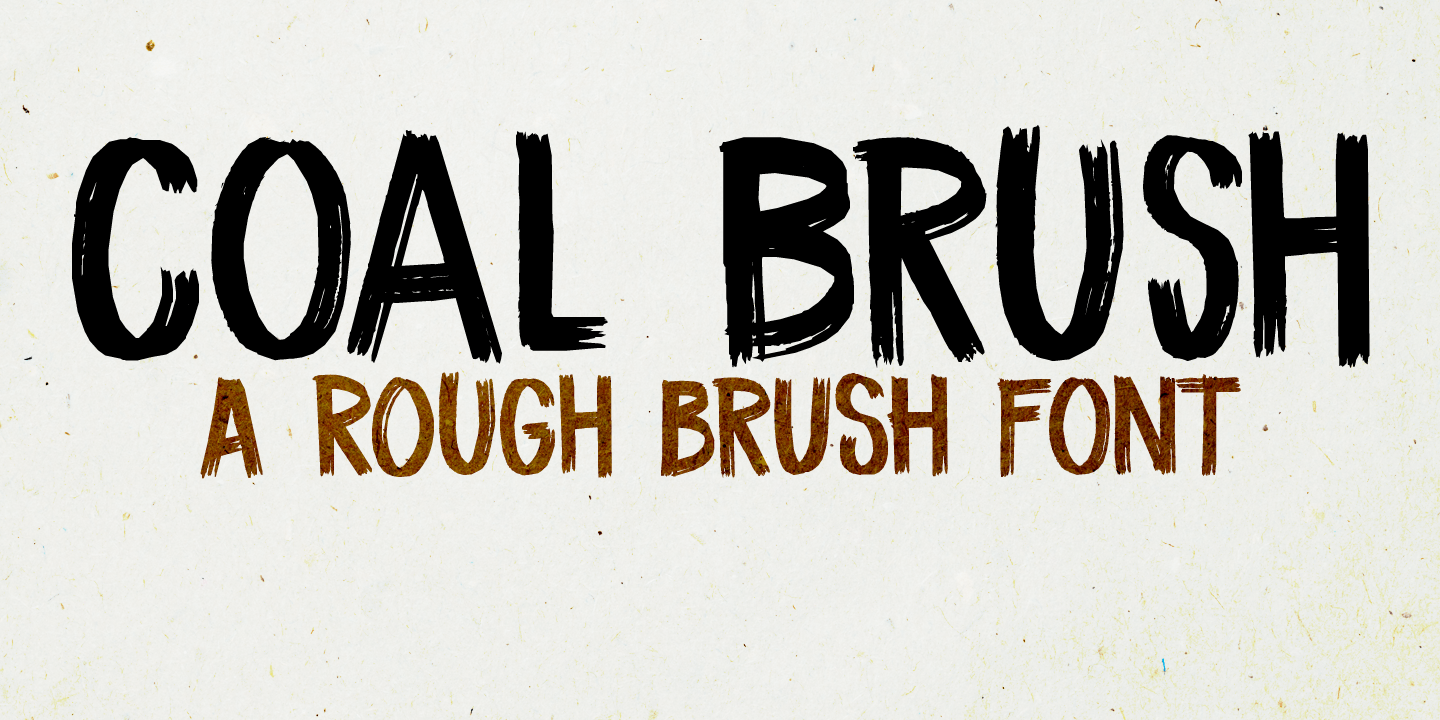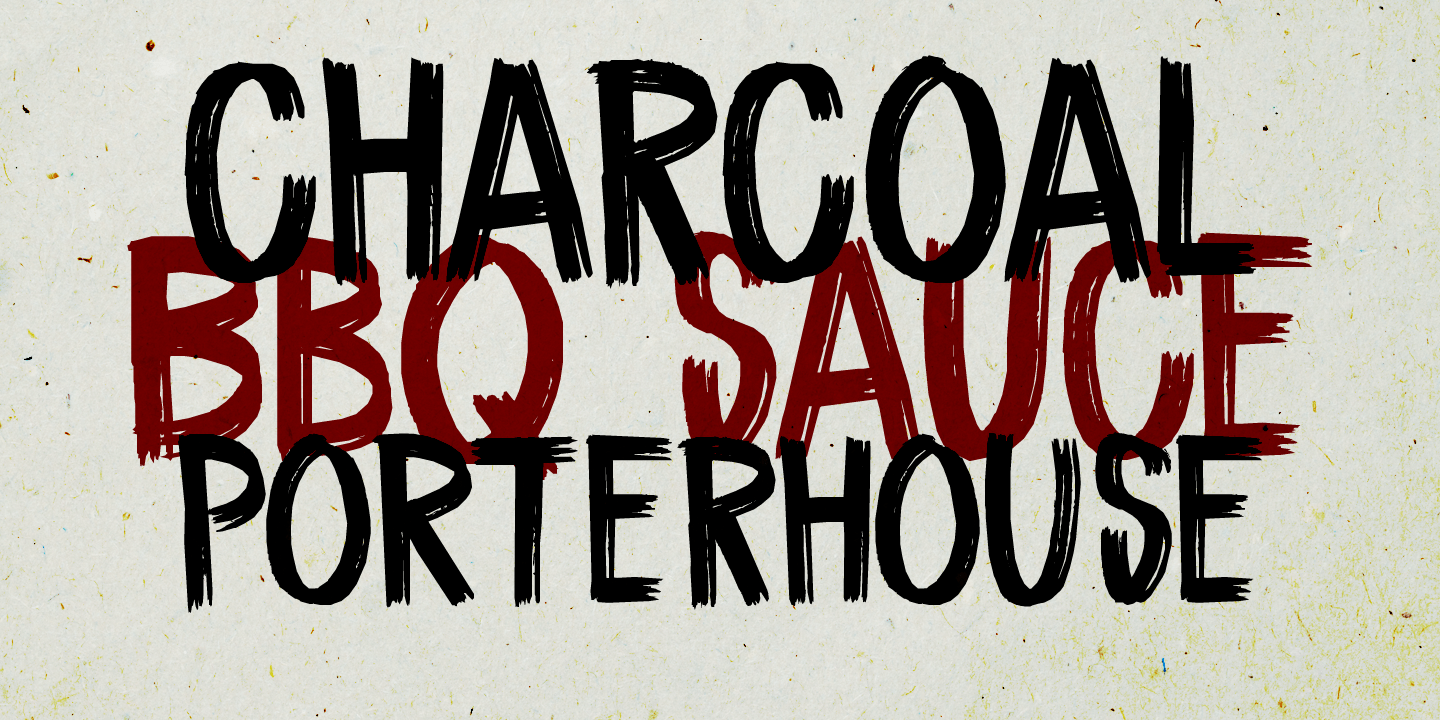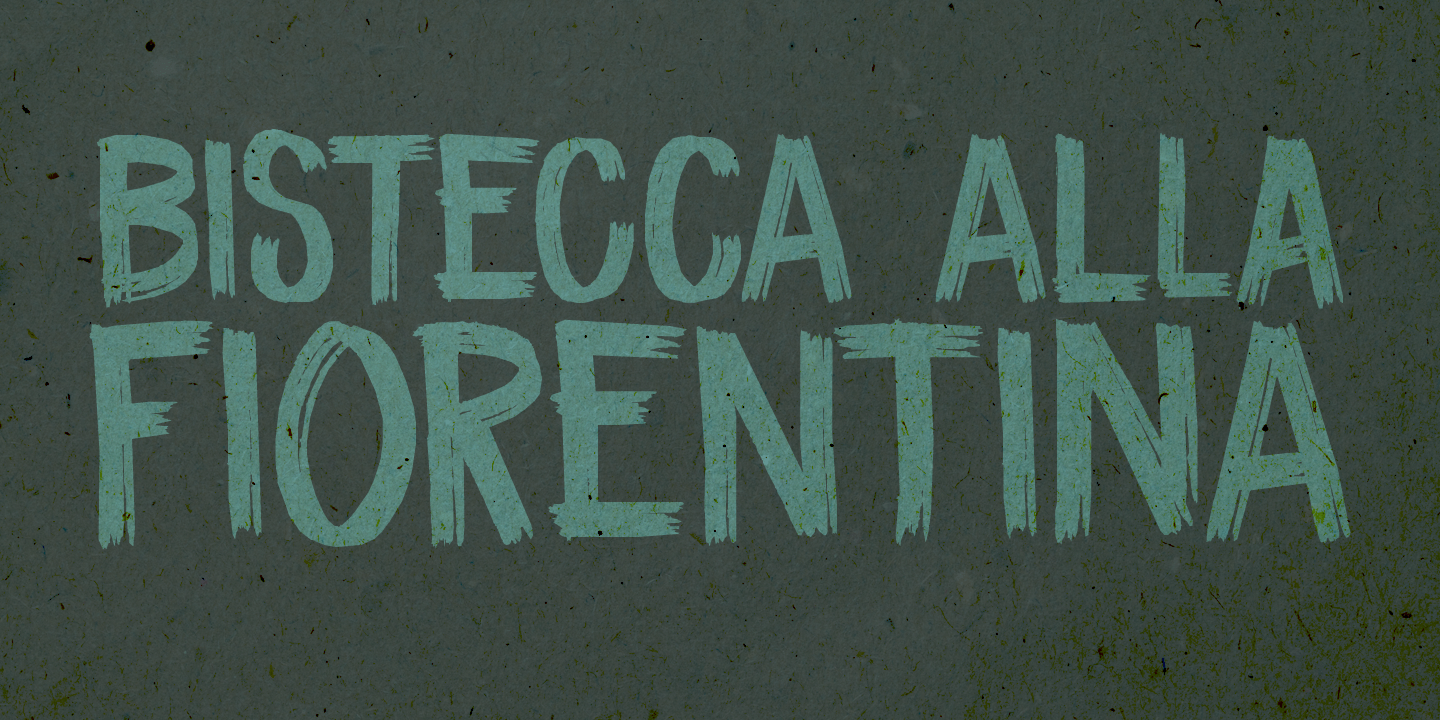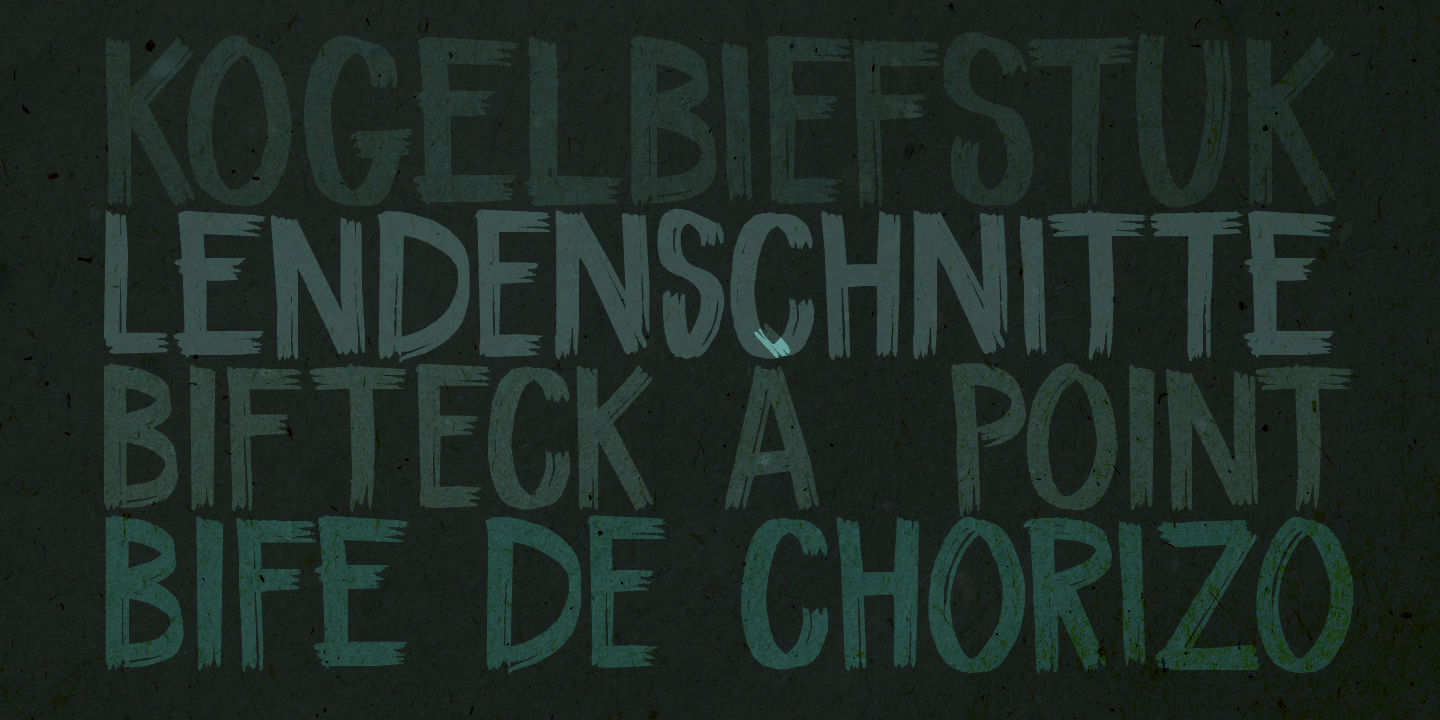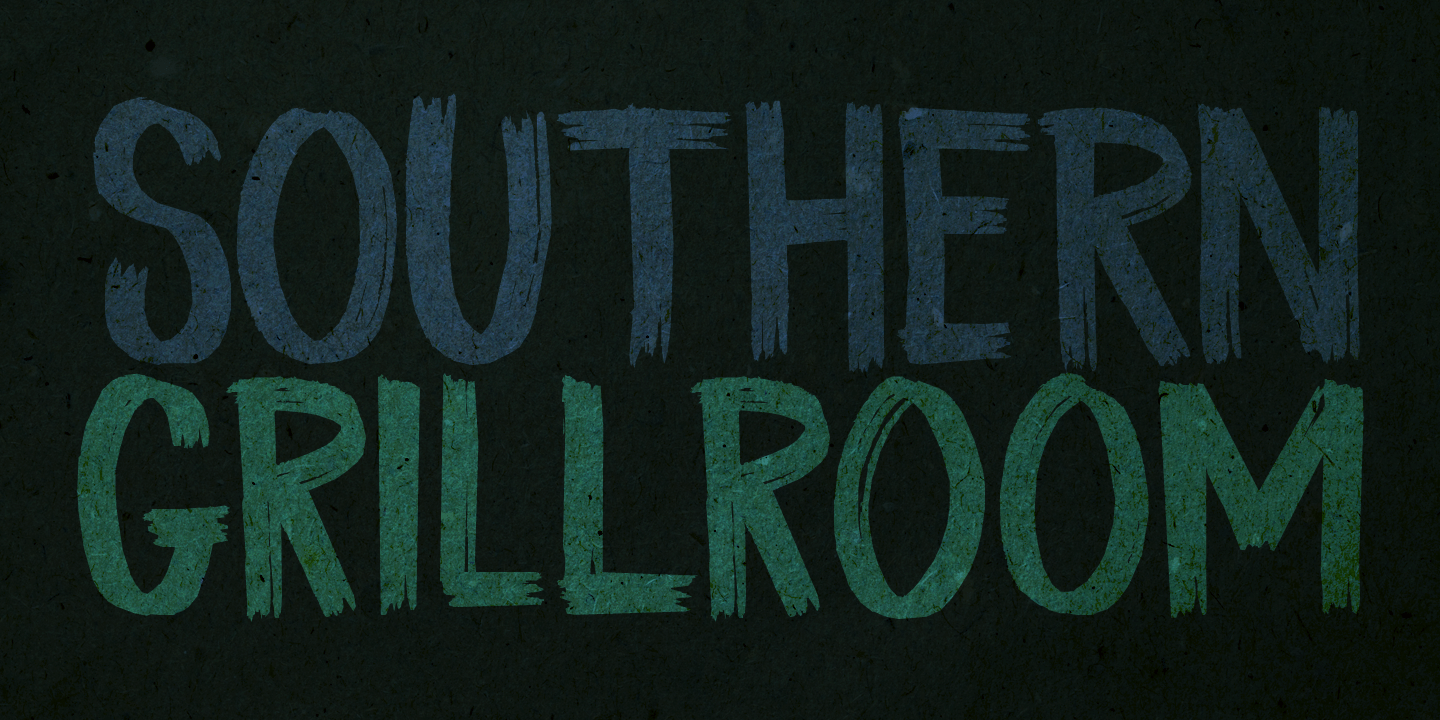
Coal Brush
Buy NowCoal Brush is a bit of a misleading name. It looks as though it was made with a brush, but it was, in fact, made with a almost dried out old marker pen. But a font named ?dried out old marker pen? doesn't really fly, so I decided to pimp the name. There you have it, you can't even trust an honest typographer!
Marker pen or brush, Coal Brush is a very sweet little font. It is all caps, but upper and lower case differ and can be mixed freely. Plus there's a hidden stash of alternates for the lower case letters and an alternate ampersand! I actually threw that in to make up for my lie. So, use it for your books, your posters, your rap albums, rock operas, grilled food restaurants and designer BBQ sauces. It's yours for the taking!